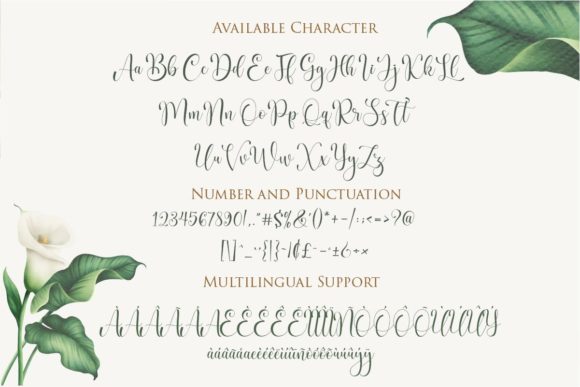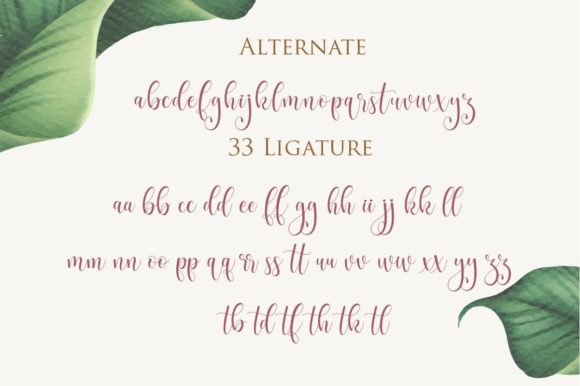
Makina Font
db-ku.com - Script & Handwritten -- Makina is a lovely handwritten font. Use it for any design projects that require a charming appearance!